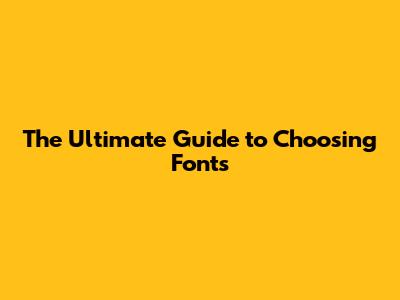
The Ultimate Guide to Choosing Fonts
Hey guys! Let's dive deep into the awesome world of fonts. You know, those little characters that make your text pop, convey emotion, and totally set the vibe for your designs. Picking the right fonts can feel like a superpower, turning a bland piece of text into something eye-catching and memorable. We're talking about fonts that grab attention, communicate your message clearly, and leave a lasting impression. It's not just about picking something pretty; it's about making a strategic choice that enhances your overall design. Think about it: the same words can feel totally different depending on the typeface. A bold, blocky font screams authority and strength, while a delicate, script font whispers elegance and romance. Getting this right is crucial, and in this guide, we’ll break down everything you need to know to become a font-picking pro. We'll explore different font types, how to pair them effectively, and some common pitfalls to avoid. Get ready to level up your design game, because by the end of this, you'll be confidently selecting fonts that make your projects shine!
Understanding Font Classifications: Serif, Sans Serif, Script, and Display
Alright, let's get down to business and break down the main players in the font game. Understanding these categories is your first step to making informed choices. First up, we have Serif fonts. These are your classic, traditional fonts, recognizable by those little decorative strokes, or 'serifs,' at the ends of the letters. Think of famous examples like Times New Roman or Georgia. Serifs add a touch of formality and elegance, making them a go-to for body text in books, newspapers, and lengthy articles because they guide the eye and improve readability over long stretches. They have a certain gravitas, a sense of history and trustworthiness. So, if you want your content to feel established, authoritative, and easy to digest, serifs are your best bet. Next, we swing over to Sans Serif fonts. 'Sans' means 'without,' so as you guessed it, these fonts don't have those little strokes. Think Arial, Helvetica, or Open Sans. They're clean, modern, and minimalist. Sans serifs are fantastic for headlines, digital interfaces, websites, and anywhere you need a crisp, contemporary look. They are super versatile and tend to render really well on screens, making them a darling of web designers. Their simplicity makes them incredibly readable, especially at smaller sizes or when you need text to be punchy and direct. Then we have the Script fonts. These fonts mimic handwriting or calligraphy, ranging from elegant, flowing scripts to more casual, brush-like styles. They add a personal, often romantic or artistic touch. Think of invitations, logos for artisanal brands, or special occasion announcements. However, use them wisely! They can be a nightmare for body text, so they're best reserved for accents and short, impactful phrases where legibility isn't the primary concern. Finally, Display fonts are the showstoppers. These are highly stylized and unique, designed to grab attention. They come in all sorts of wild and wonderful forms – think chunky slab serifs, retro-inspired fonts, or futuristic geometric styles. Display fonts are perfect for headlines, posters, logos, and any situation where you want your text to be a prominent visual element. They are meant to be seen, not read in bulk, so keep them for big, bold statements.
The Art of Font Pairing: Making Your Typefaces Sing Together
Now, let's talk about the magic trick: font pairing. This is where you combine different fonts to create a harmonious and visually appealing hierarchy. Trying to use too many fonts can quickly lead to a chaotic mess, guys, so the golden rule is usually to stick to two or three complementary typefaces. The easiest and most foolproof way to pair fonts is to combine a serif with a sans serif. The contrast between the two distinct styles creates visual interest and clearly separates different elements, like headlines from body text. For example, you could use a bold sans serif for your main headline and a readable serif for the paragraph text that follows. This contrast ensures that each font plays its role effectively, guiding the reader's eye through the content. Another popular strategy is to pair fonts from the same font family but with different weights or styles. For instance, you might use a light or regular weight sans serif for body text and a bold or black weight of the same sans serif for your headline. This creates a cohesive look because the underlying letterforms are identical, but the variation in weight provides enough distinction. It's a safe and professional approach. When choosing script or display fonts, treat them as accent pieces. They should be paired with a more neutral, readable font (usually a sans serif or a simple serif) that allows the decorative font to stand out without overwhelming the reader. Think of the decorative font as the sparkling accessory and the neutral font as the elegant outfit. Always consider the mood and purpose of your design. Are you going for playful and modern, or classic and sophisticated? Your font pairings should reflect this. Test your pairings! What looks good on a design mockup might not read as well on a live website or printed material. Get feedback from others, squint at your design from a distance – does the hierarchy still hold up? Don't be afraid to experiment, but always keep legibility and the overall message of your design at the forefront. Effective font pairing isn't just about aesthetics; it's about enhancing communication and making your content accessible and engaging for your audience.
Key Principles for Font Selection: Readability, Hierarchy, and Personality
When you’re deep in the design zone, guys, remember that choosing the right fonts boils down to three core principles: readability, hierarchy, and personality. Let's break these down because they're your guiding stars. First and foremost, readability is king. No matter how cool a font looks, if people can't easily read your words, it's failed its primary job. This means considering the x-height (the height of lowercase letters like 'x'), the spacing between letters (kerning and tracking), and the overall clarity of the letterforms. Fonts with clear, distinct characters, open counters (the enclosed spaces in letters like 'o' or 'p'), and appropriate spacing are generally more readable, especially for extended blocks of text. You want readers to flow smoothly through your content, not to strain their eyes or misinterpret words. Think about where your text will be viewed – a tiny mobile screen or a large billboard – and choose fonts accordingly. A highly decorative font might be amazing for a one-word headline, but it's going to be a disaster for a lengthy article. Next up is hierarchy. This is how you visually guide your reader's eye through the information, telling them what's most important and what's secondary. Fonts are your primary tool for establishing this. You can create hierarchy using font size, weight (bold, regular, light), style (italic), and color. A larger, bolder font for your main heading immediately tells the reader, 'This is the most important information.' Subheadings, usually smaller but still distinct, guide them to the next level of information. Body text should be clear and comfortable to read at a standard size. Proper hierarchy makes your content scannable and digestible, preventing overwhelm and ensuring your key messages get across. Finally, personality. Every font carries its own vibe, its own character. A font can make your brand feel modern, classic, playful, serious, elegant, or edgy. This personality should align with your brand identity and the overall tone you want to convey. Are you a quirky startup that wants to feel approachable and fun? Maybe a friendly, rounded sans serif is your jam. Or perhaps you're a luxury brand aiming for sophistication? A refined serif or a classic script might be more appropriate. Your font choice is a silent communicator, speaking volumes about who you are before anyone even reads a word. Make sure the personality of your fonts reinforces your message and resonates with your target audience. Nail these three principles, and you're well on your way to creating designs that are not only beautiful but also incredibly effective.
Common Font Mistakes to Avoid
Alright, you guys, let's talk about the oopsies, the design faux pas, the common font mistakes that can totally derail your awesome work. We've all been there, staring at a design and feeling like something's just... off. Often, that 'off' feeling comes down to a font blunder. One of the biggest culprits is overuse of fonts. Remember that rule of thumb? Stick to two or three maximum. When you cram too many different typefaces into one design, it looks messy, unprofessional, and frankly, confusing. Each font is shouting for attention, and the result is visual chaos. It's like inviting ten people to give a speech at the same time – nobody hears anything clearly. Another huge mistake is poor font pairing. This goes hand-in-hand with overuse. Slapping together fonts that clash horribly in style or weight can make your design look amateurish. Think Comic Sans next to a super elegant script – yikes! If you’re not confident in pairing, stick to the classic serif-sans serif combo or use fonts from the same family. Your design will thank you. Then there's the issue of ignoring readability. As we’ve hammered home, if it's hard to read, it's failed. This often happens when designers get too caught up in the aesthetics of a font and forget its primary function. Using a super condensed font for long paragraphs, choosing a very light weight for body text, or selecting a font with confusing letterforms can all kill readability. Always test your text at different sizes and on different screens. Another trap is inconsistent application. If you use one font for headlines on one page and a different one on another, without a clear stylistic reason, your design loses coherence. Maintain consistency in your font choices and their application throughout your project. Finally, using default or overused fonts without thought. While fonts like Arial or Times New Roman are classics for a reason, relying on them without considering if they truly fit your project's personality can make your design feel generic. Conversely, trendy fonts can also become overused very quickly. Do a little research, find fonts that genuinely serve your purpose, and make intentional choices. By being mindful of these common pitfalls, you can steer clear of design disasters and ensure your typography is working for you, not against you.
Where to Find Great Fonts: Free and Paid Resources
So, you’re ready to find some awesome fonts, right? Luckily, there are tons of amazing places to snag typefaces, whether you're on a budget or ready to invest. For the budget-conscious folks and those just starting out, free font resources are your best friend. Google Fonts is an absolute goldmine. It's completely free, and they have an enormous, well-curated library of high-quality fonts that are all open-source and web-safe. You can easily browse, test them out, and download them for any project. Another fantastic resource is Font Squirrel. They meticulously hand-pick free fonts that are commercially licensed, so you can use them for client work without worry. They also offer a great font identifier tool if you ever see a font you love and want to find something similar. For a slightly different vibe, check out DaFont or UrbanFonts, but always double-check the licensing terms on these sites, as not all fonts are free for commercial use. Now, if you're looking for something truly unique, premium, or if you need specific weights and styles not available in free options, paid font foundries and marketplaces are the way to go. Adobe Fonts (formerly Typekit) is a fantastic option if you're already subscribed to Adobe Creative Cloud. It gives you access to a massive library of high-quality, licensed fonts that integrate seamlessly with Adobe apps. MyFonts is one of the largest marketplaces, offering an incredible selection from independent foundries and major foundries alike. You can filter by style, price, and licensing. FontShop and Linotype are also reputable sources for premium fonts, often featuring work from renowned type designers. For those really digging for unique, handcrafted, or very specific styles, sites like Creative Market offer fonts from independent designers, often bundled with other design assets. When choosing, remember to consider the licensing. Free fonts are often free for personal use, but commercial use might require a different license or might be prohibited. Paid fonts usually come with clearer licensing terms, but always read the EULA (End-User License Agreement) to make sure you're covered for your specific project needs, whether it's for web, print, or app usage. Happy font hunting!
Conclusion: Your Font Journey Starts Now!
Alright guys, we've covered a ton of ground, from understanding the basics of serif, sans serif, script, and display fonts, to the crucial art of font pairing, and the essential principles of readability, hierarchy, and personality. We've also armed you with the knowledge to sidestep common font mistakes and pointed you toward some amazing resources for finding both free and paid fonts. Choosing the right fonts is a skill, and like any skill, it improves with practice and a keen eye. Don't be afraid to experiment, to play around with different combinations, and to trust your intuition. Your fonts are the voice of your design, so choose them wisely! They have the power to evoke emotion, convey information effectively, and build a strong brand identity. Whether you're designing a website, a social media graphic, a presentation, or a full-blown brand guide, the typography you select plays a pivotal role in its success. So, go forth, explore those font libraries, and start making your designs sing. Happy designing, and may your typography always be on point!